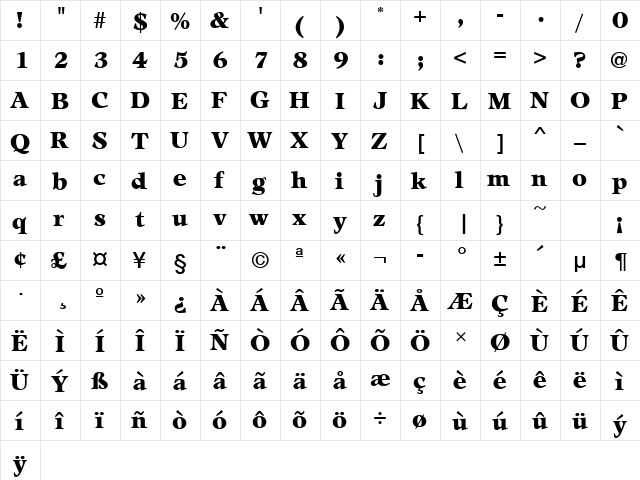
AdroitURWTExtBol Regular
Design Context for AdroitURWTExtBol Typeface
AdroitURWTExtBol is a composed and adaptable typeface that performs quietly and consistently across a wide range of design contexts.
Pro Tip: Use AdroitURWTExtBol in both headline and body roles to test its range before committing to a single application.